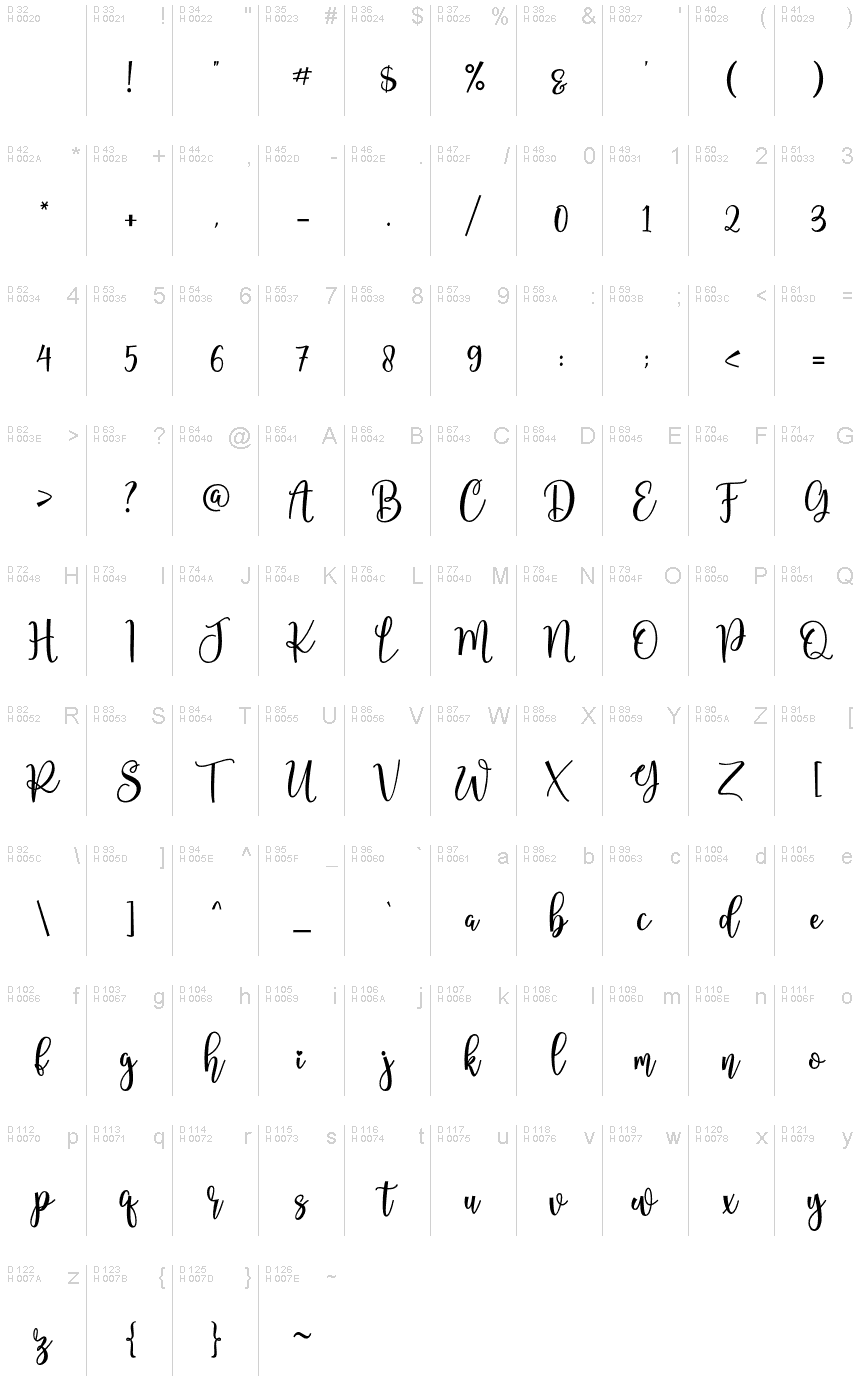
Masterlove
Masterlove, a captivating calligraphy font, designed by the talented Letternun, exudes elegance and finesse. With its semi-light weight, this font gracefully dances across the page, adding a touch of sophistication to any project. Perfect for wedding invitations and love letters, Masterlove brings an air of romance to your designs. Its flowing strokes and graceful curves make it equally suitable for fashion magazines and beauty blogs. Whether you're creating a logo for a luxury brand or designing a book cover that needs that extra touch of class, Masterlove is the ideal choice.